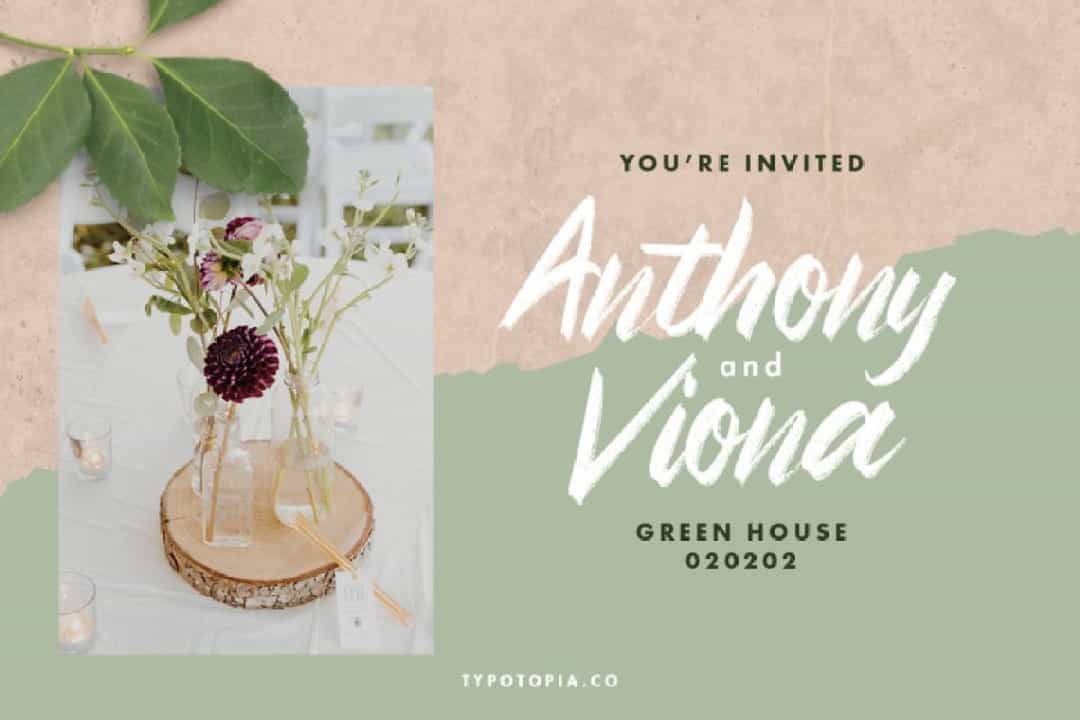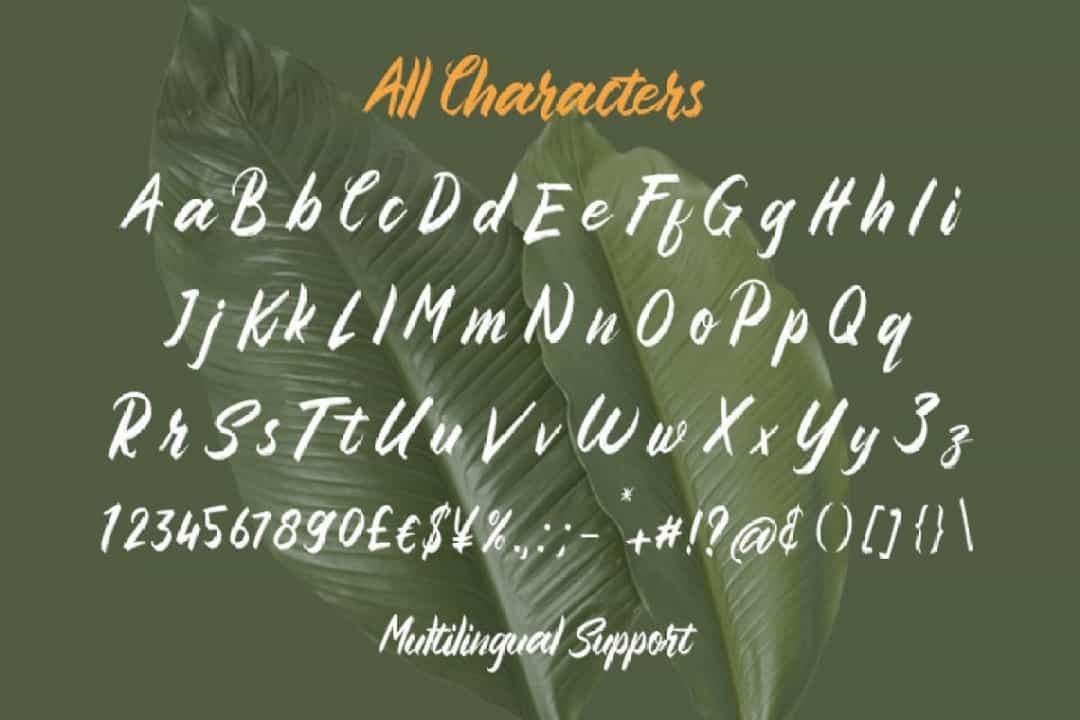
It can be stated that Sembilu belongs to the category of Brush-Script Font. Designed to suit logo creation, poster design, stationery, magazine design, menu creation, invitation design, book design, card making, packaging design, greeting card design, label creation, cloth design, marketing, and business card creation among others this font is versatile in its application.